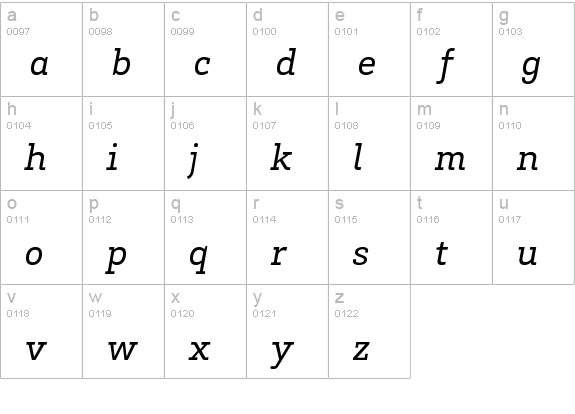
Brix Slab Regular Italic Font Details
Brix Slab Regular Italic is the standard, neutral, italic variant in the Brix typeface family \xE2\x80\x94 well suited to general body text, paragraphs, and standard typographic work.
Brix Slab Regular Italic font exudes a sense of modern sophistication with its sleek and stylish design. This italic variant of the Brix Slab typeface adds a touch of elegance and flair to any project or design. The slanted letters create a dynamic and eye-catching look that is perfect for adding emphasis or creating a sense of movement. What's even better is that Brix Slab Regular Italic font is available for free download at FontsMarket.com. This means that you can easily access this stunning font and use it in your various creative endeavors without any cost. Whether you're working on a branding project, a website design, or any other creative venture, Brix Slab Regular Italic font is sure to elevate your work and make a lasting impression. Download it today and see the difference it can make in your designs!